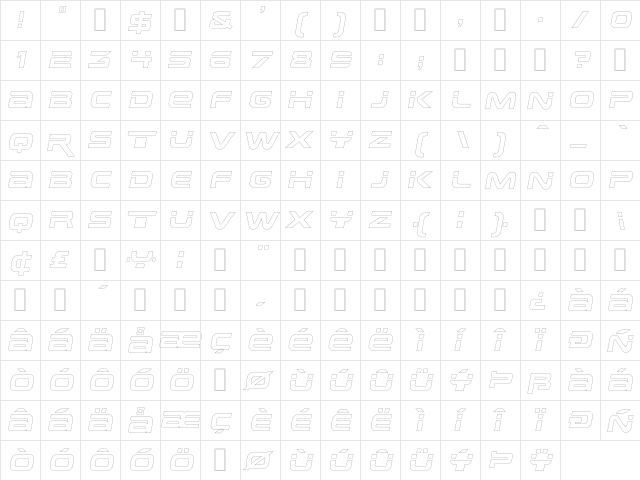
SciFiOutline Italic
Design Context for SciFiOutline Typeface
SciFiOutline channels digital-age aesthetics through its sharp, structured letterforms — ideal for brands that want to signal innovation. The dynamic lean of this cut emphasises speed and emphasis in any layout.
Pro Tip: Use SciFiOutline in combination with a neutral sans for body text. Let it define the brand voice in headlines while keeping reading comfortable elsewhere.